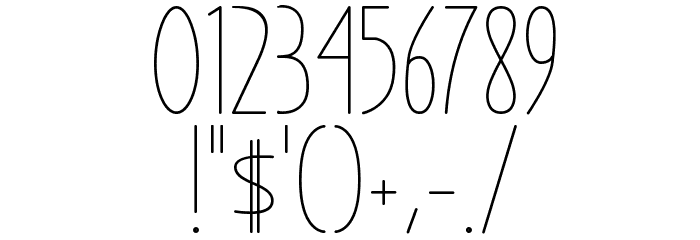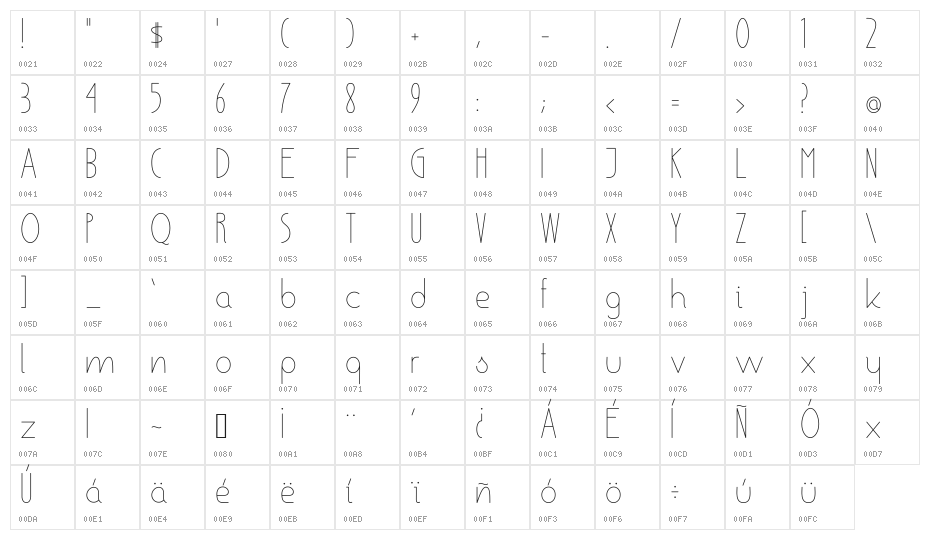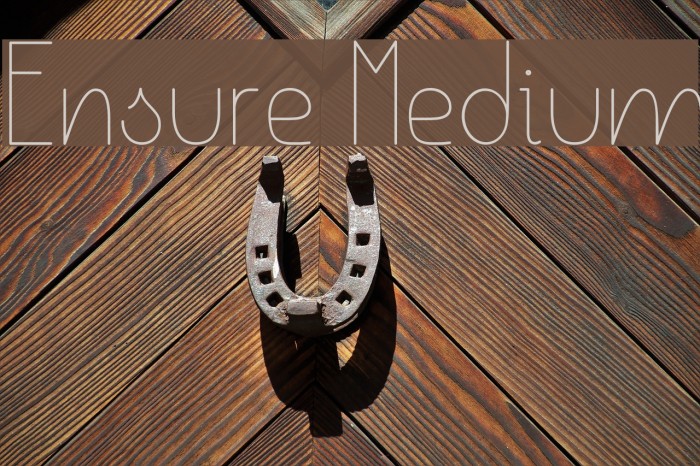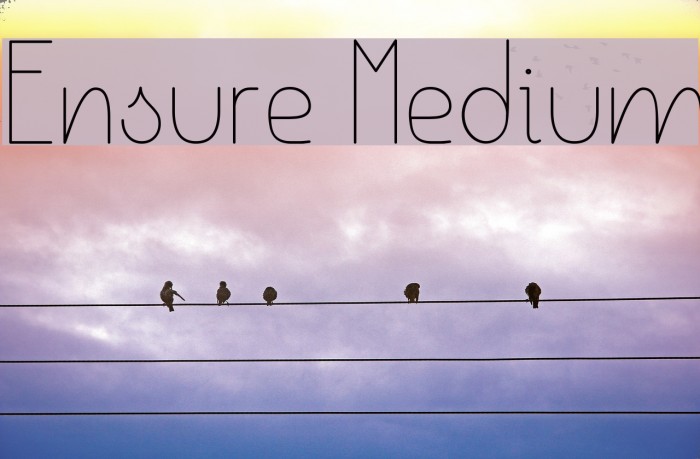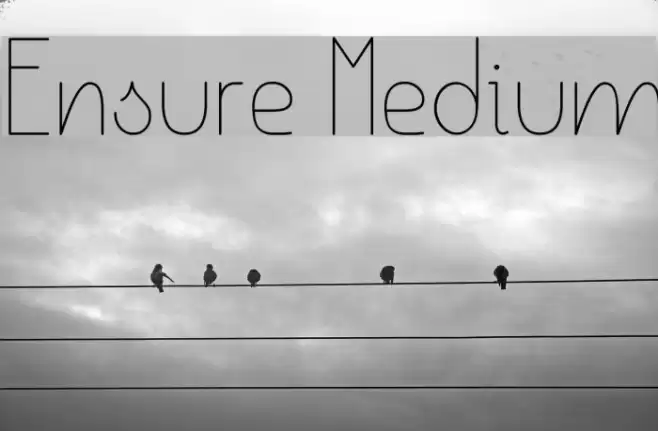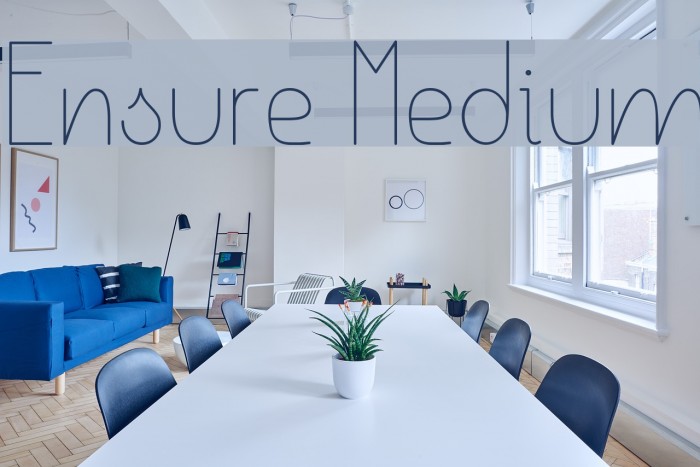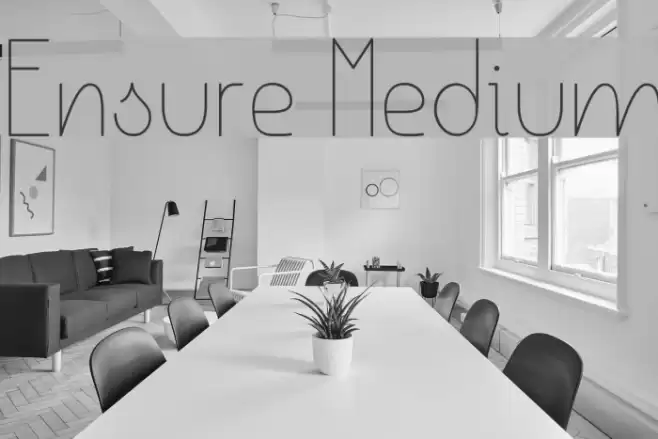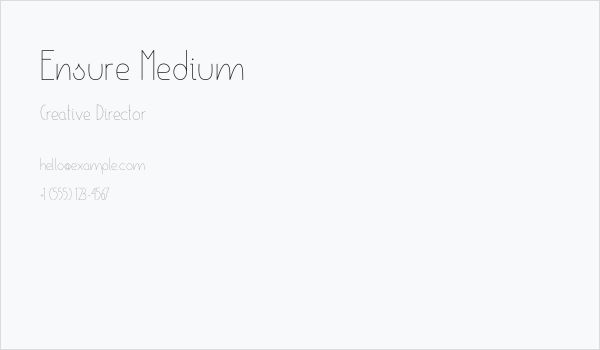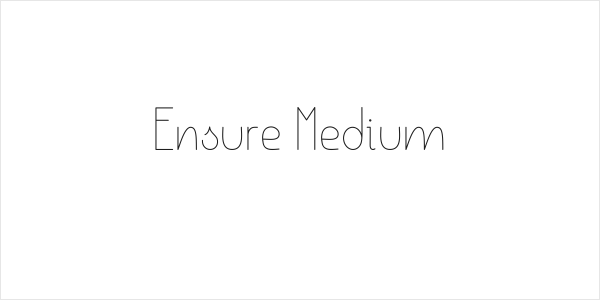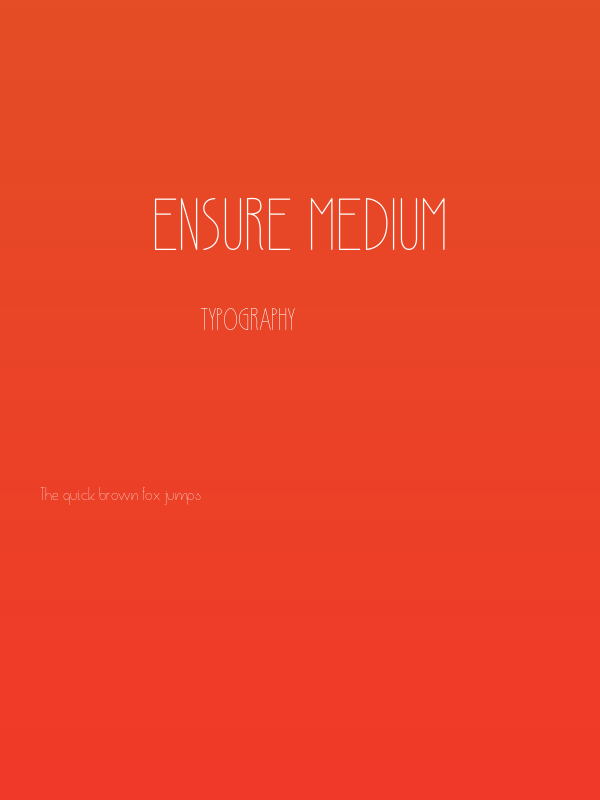
Ensure Medium Font
Ensure Medium Description
This font features a modern and minimalist design with tall, narrow characters. The strokes are thin and consistent, providing a clean and elegant appearance. The uppercase letters are particularly elongated, giving a sophisticated and stylish look. The lowercase letters maintain a similar aesthetic, with rounded edges that add a touch of softness. The numerals are sleek and align well with the overall design, ensuring readability and uniformity. Special characters are crafted with the same attention to detail, making them seamlessly integrate with the rest of the typeface. This font is ideal for projects that require a contemporary and refined touch.
| Proposed Projects | Ideal for fashion magazines, luxury branding, minimalist posters, and modern web design. |